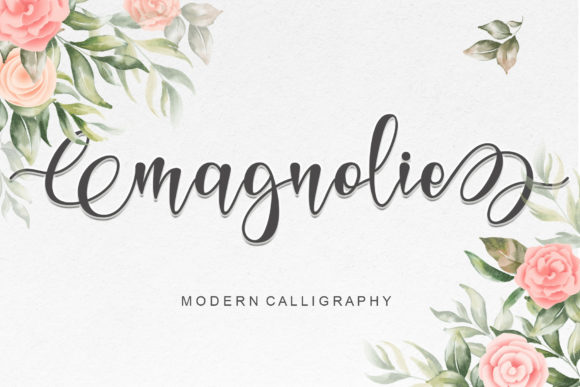
Prepare yourself to be mesmerized by Magnolie Font, a captivating script font that exudes elegance and charm. This enchanting typeface is the brainchild of the talented Letterafa Studio, renowned for crafting fonts that ignite creativity.
Magnolie Font is not just a collection of letters; it's an invitation to embark on a journey of artistic expression. Its characters pirouette and twirl along the baseline as if guided by an invisible hand, adding a touch of whimsy to your designs.
Imagine the possibilities! Magnolie Font is the perfect choice for adding a touch of romance to your wedding invitations, creating eye-catching social media graphics that will make your audience swoon, or designing memorable logos that will leave a lasting impression.
But Magnolie Font's versatility doesn't end there. It's equally at home adorning the pages of your latest fantasy novel, bringing life to your enchanting posters, or adding a touch of sophistication to your branding materials.
Let Magnolie Font be the secret ingredient that elevates your creative projects to new heights. Its PUA encoding grants you effortless access to a world of glyphs and ligatures, empowering you to unleash your imagination.
Indulge in the allure of Magnolie Font and experience the transformative power it holds for your designs. Whether you're a seasoned designer or just starting your creative journey, Magnolie Font will become an indispensable tool in your arsenal.